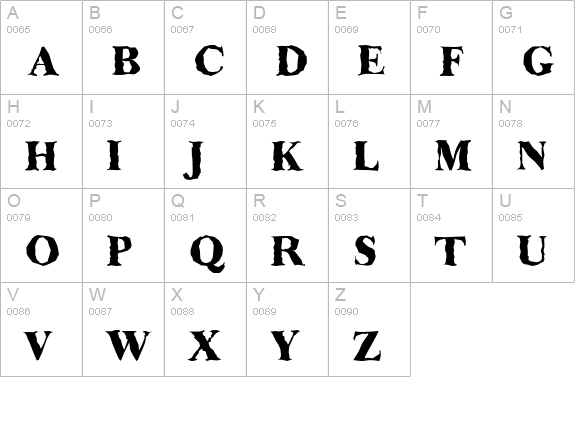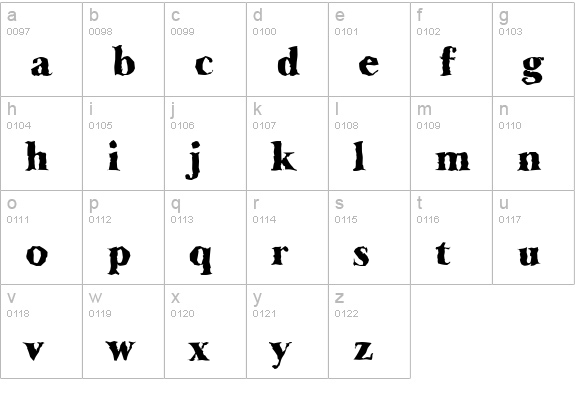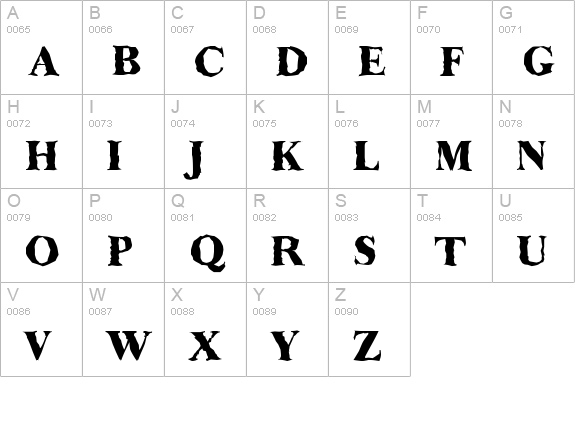
BaskerOldRandom-Heavy-Regular Font Details
BaskerOldRandom-Heavy-Regular is a heavy, high-impact variant in the BaskerOldRandom typeface family \xE2\x80\x94 well suited to high-impact headlines, posters, and display advertising.
BaskerOldRandom-Heavy-Regular font is a bold and eye-catching typeface that exudes a sense of strength and solidity. With its heavy weight and random style, this font is perfect for making a statement and grabbing attention. The distinct character shapes and unique design elements give your text a dynamic and modern look. Best of all, BaskerOldRandom-Heavy-Regular font is available for free download at FontsMarket.com. Whether you're working on a poster, logo, or any other design project, this font is a versatile choice that will add a touch of personality and flair. Don't miss out on the opportunity to enhance your designs with this striking font that is both impactful and memorable. Download BaskerOldRandom-Heavy-Regular today and let your creativity shine!